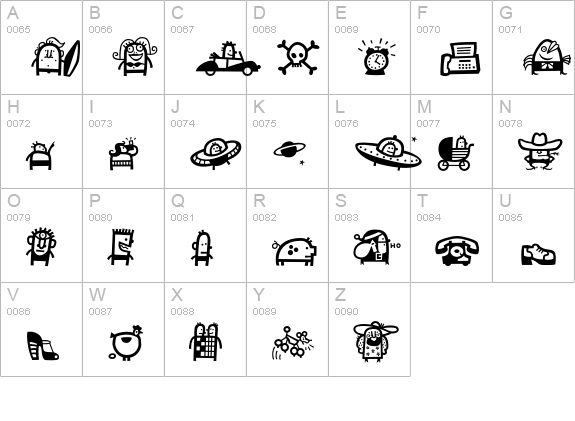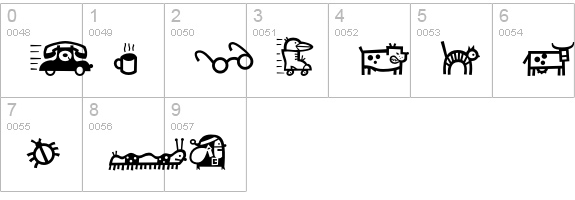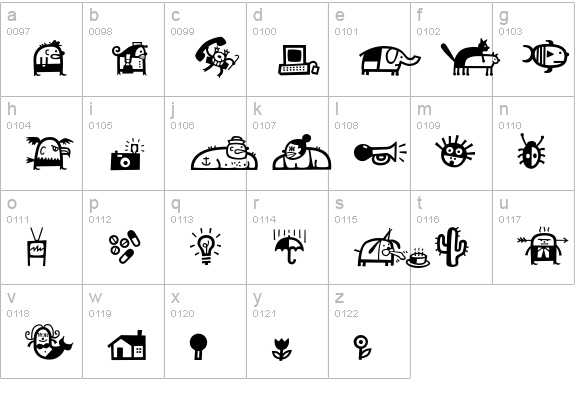
DickAndJane Font Details
DickAndJane font is a charming and playful typeface that brings a touch of nostalgia to any design project. With its whimsical and friendly appearance, this font is perfect for children's books, invitations, and other creative projects. The curvy and hand-drawn style of DickAndJane font adds a unique and fun flair to any text, making it stand out from the crowd. The best part is that DickAndJane font is available for free download at FontsMarket.com. You can easily access this delightful font and add a touch of joy to your designs without any cost. Whether you're designing a birthday card, creating a poster, or working on a school project, DickAndJane font is sure to bring a smile to your audience's face. Download this free font today and let your creativity shine!